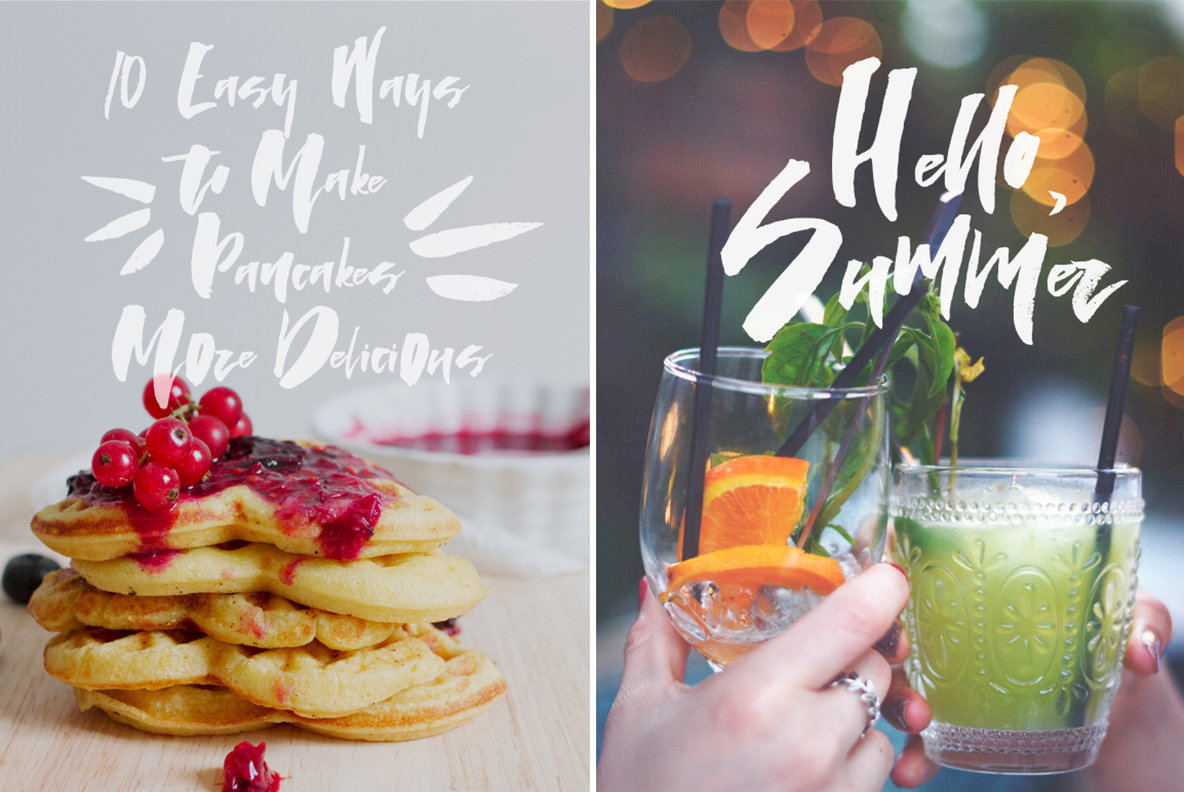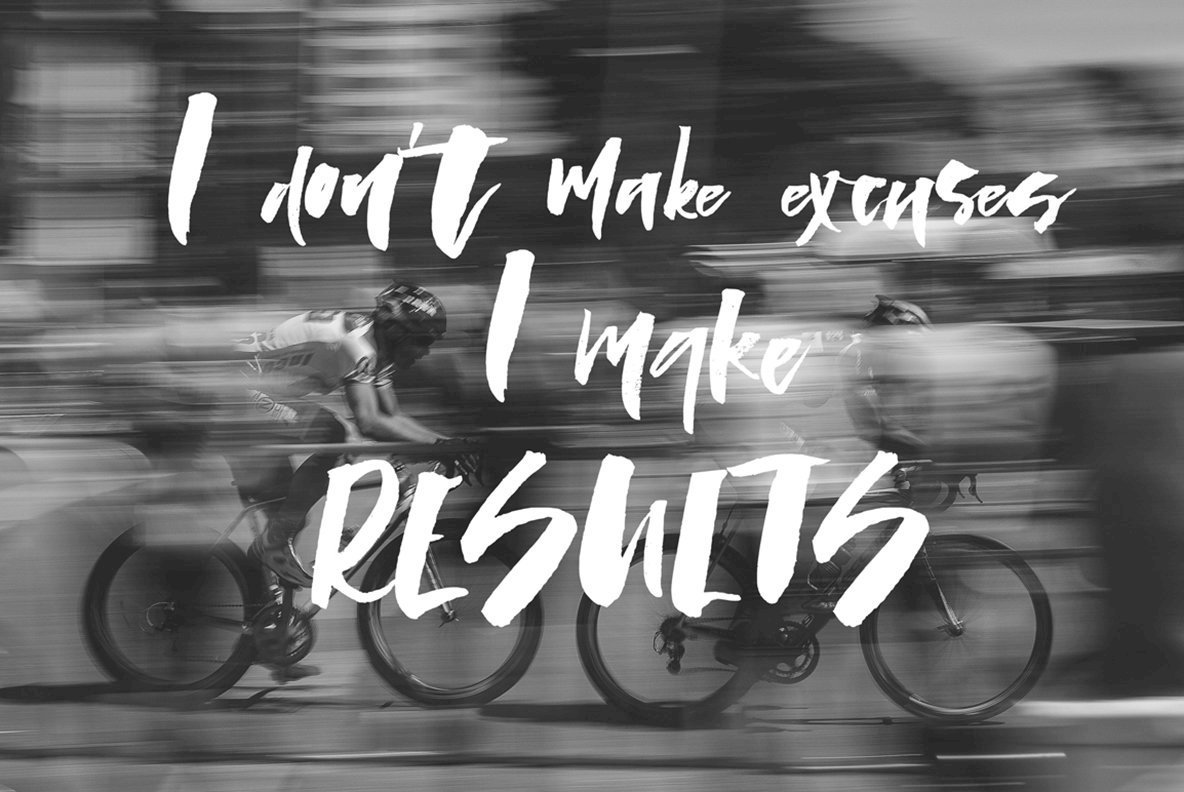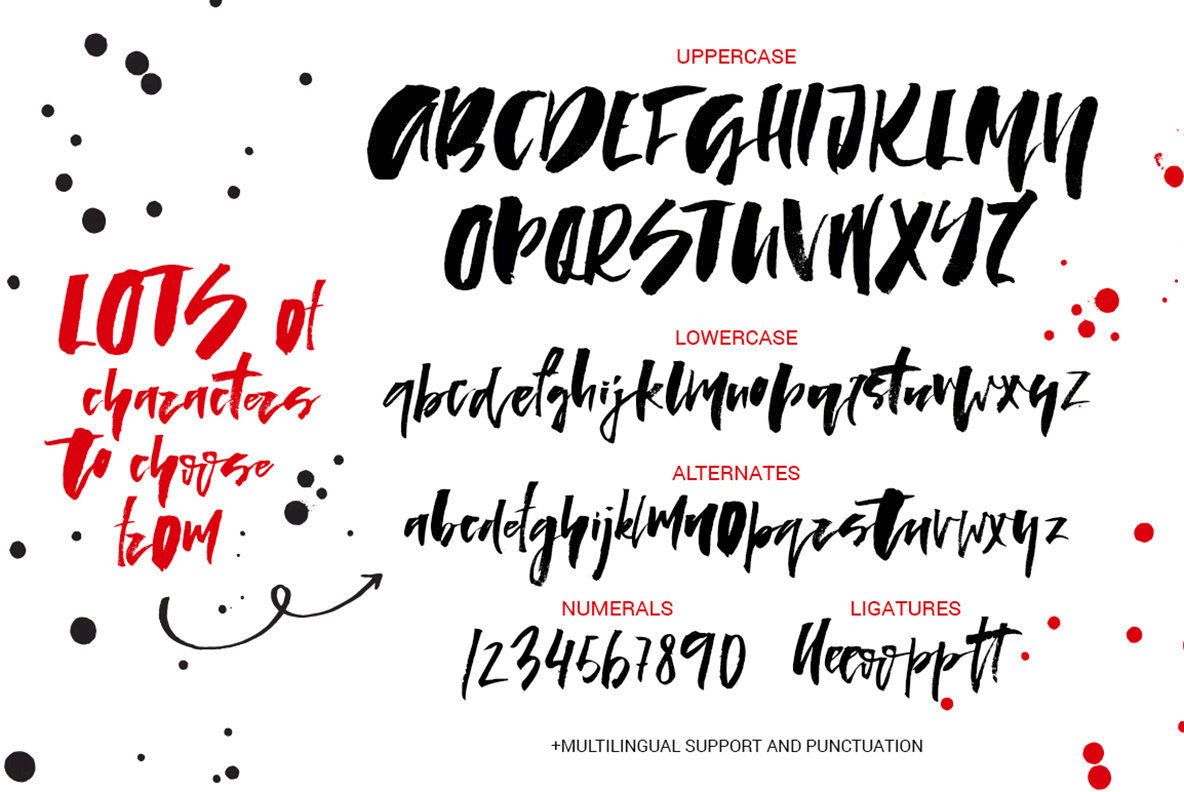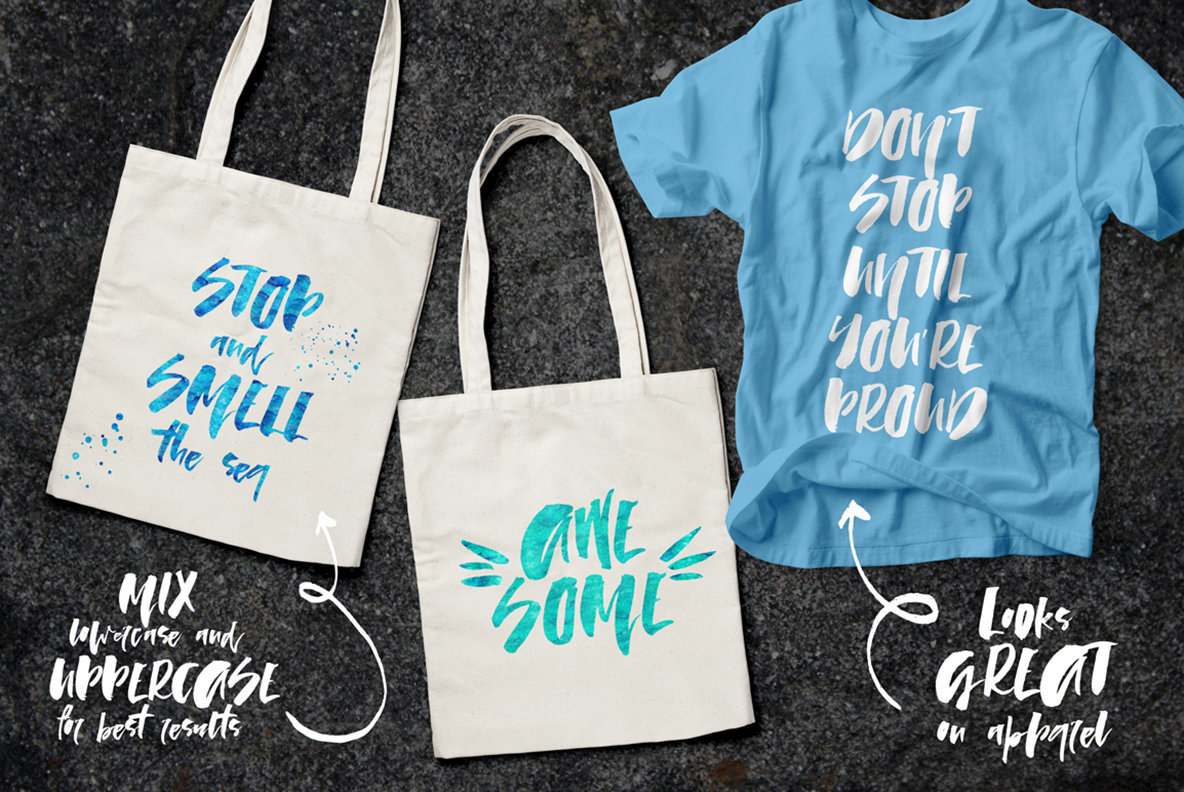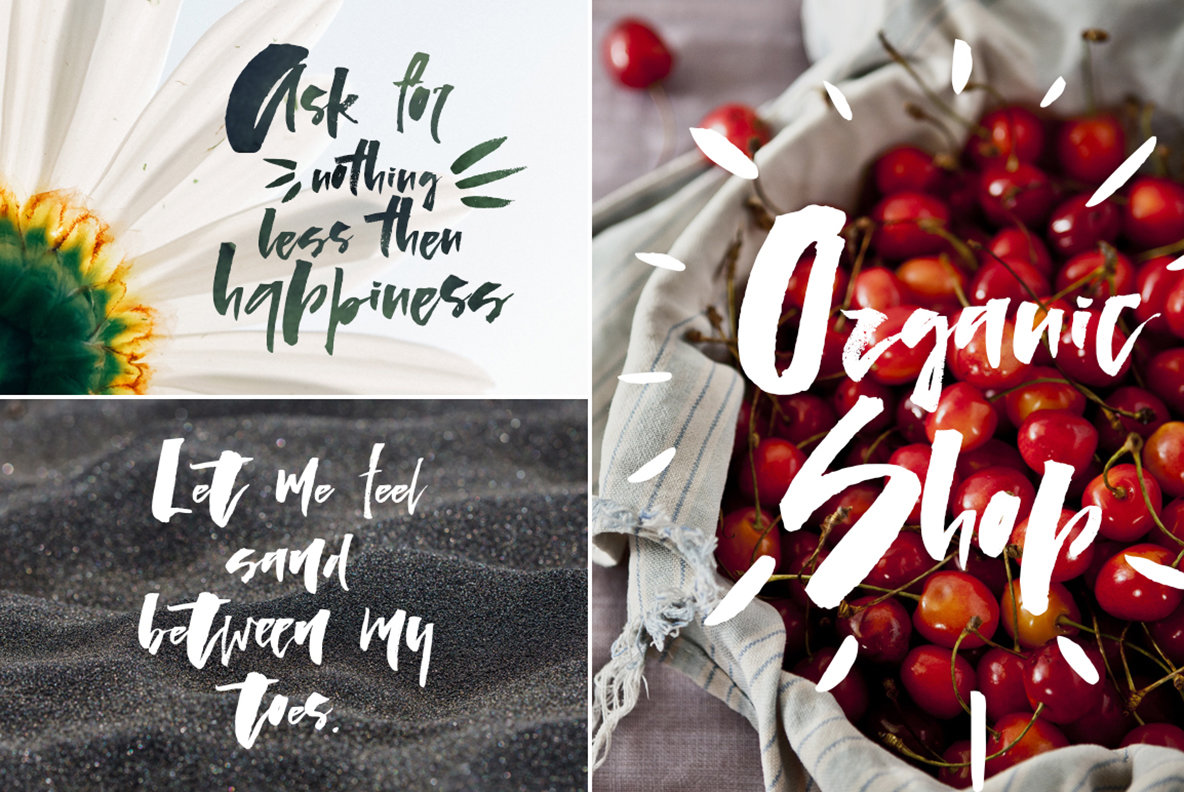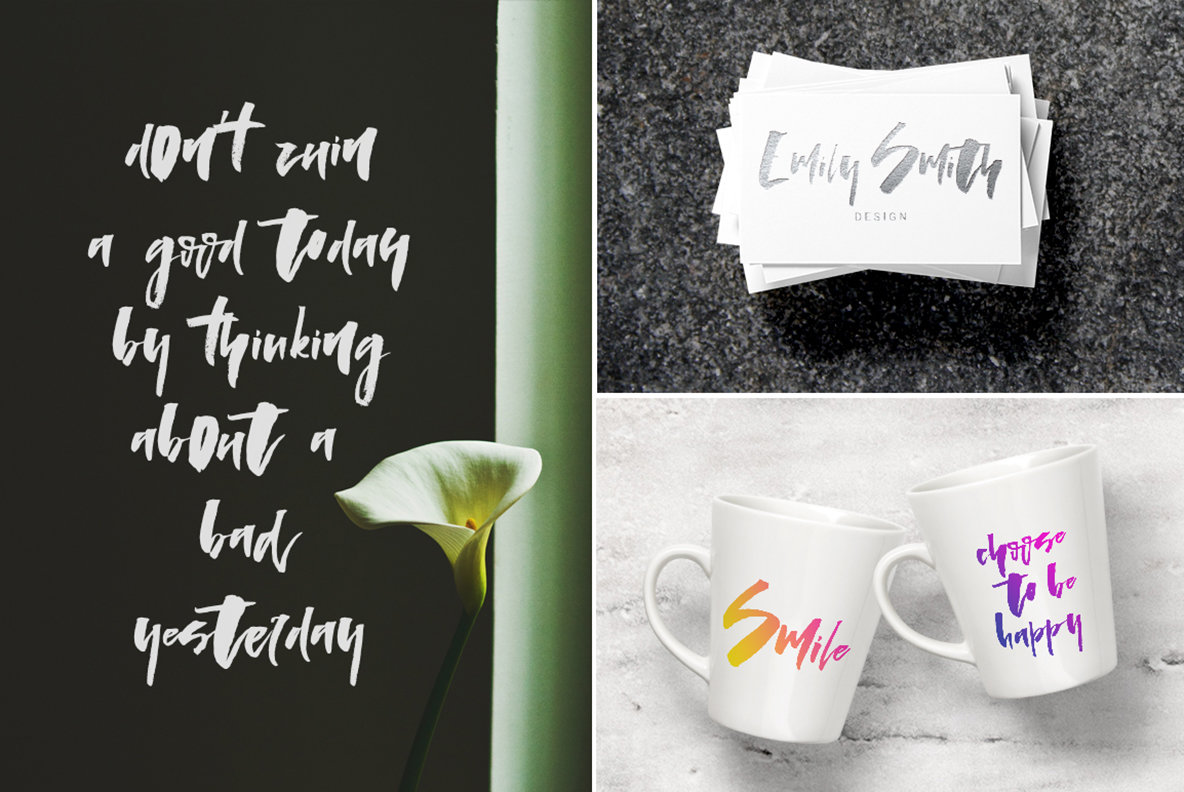
Lady in Red Font
Lady in Red
Lady in Red is an energetic, rough, noticeable font that will definitely attract attention. It looks great both in lowercase & uppercase and it has tons of characters to choose from (all of those are PUA encoded - which means you can access them from any software you are using). Lady in Red is an ideal font for logos, book covers, apparel design, quotes, product packaging.
Main things that you need to know about Lady in Red:
- it has full set of lowercase alternates (you'll have twice as much fun!)
- all most popular ligatures are included too
- this font is PUA encode - that means that you will be able to access all characters from any application.
- it has language support for most of european languages